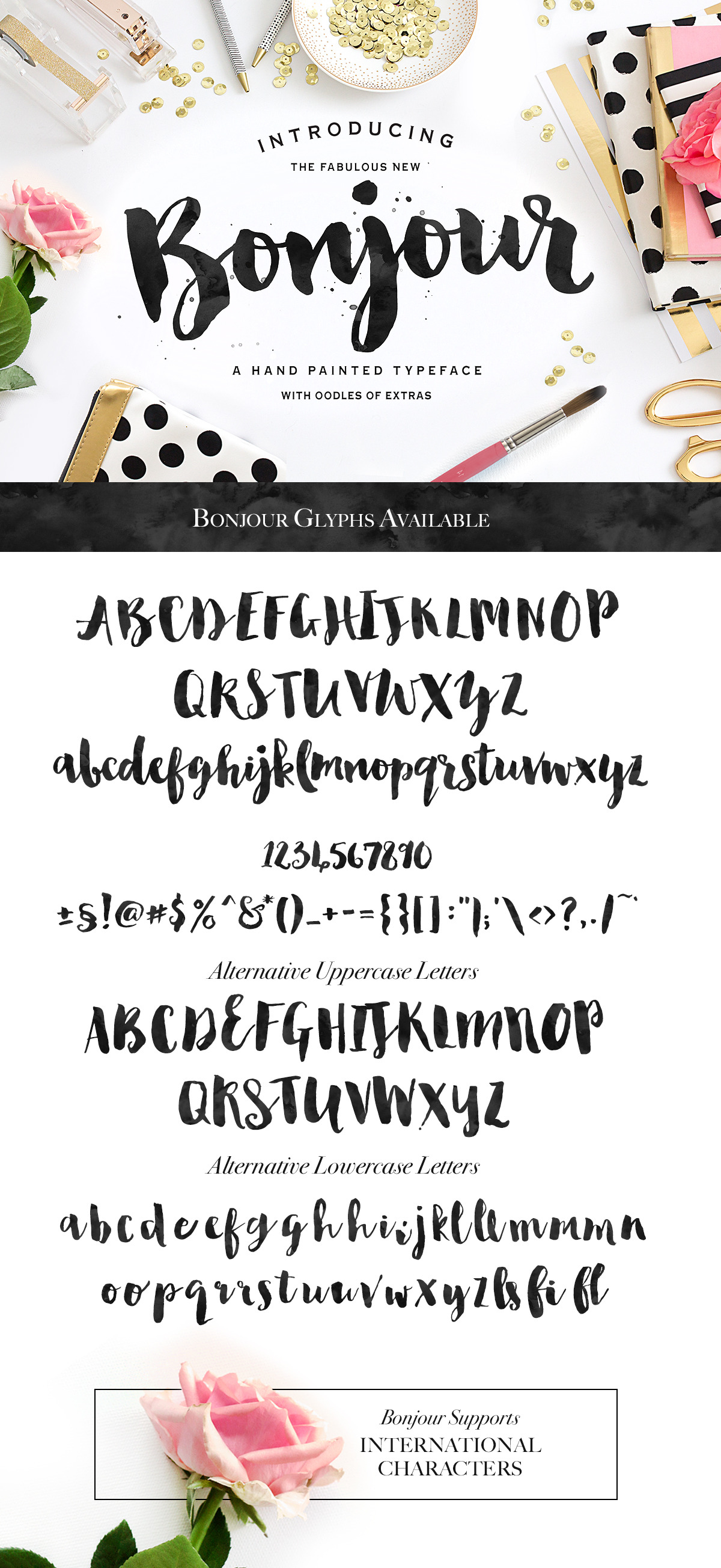
Bonjour! Typeface with Extras
Say hello to BONJOUR! A bold and beautiful brush-lettered font with oodles of extras!
Bonjour comes with alternate upper and lowercase characters, and supports international languages.
Perfect for : using in ink or watercolour based designs or on its own as bold hand-brushed lettering :)